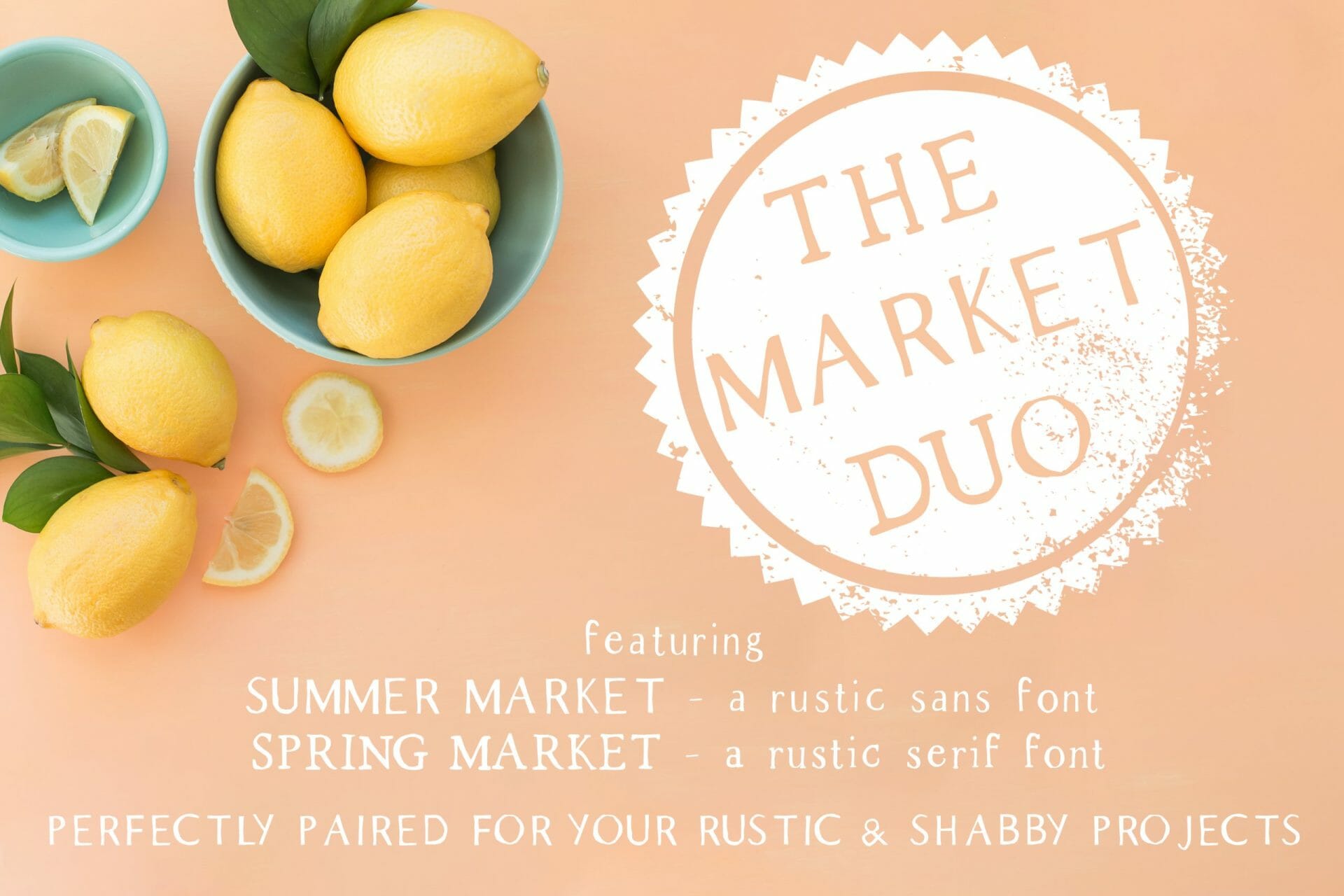
The Market Duo – Rustic Farmhouse Sans & Serif
The Market Duo – Rustic Farmhouse Sans & Serif: Spring Market and Summer Market
These perfectly paired fonts are perfect for your next rustic or shabby chic project. Use for logo design & branding, invitations, signage, product packaging, & more!
Both fonts feature Western European language support, puncutation, and numbers, along with the full upper + lowercase character sets.
Spring Market
Summer Market